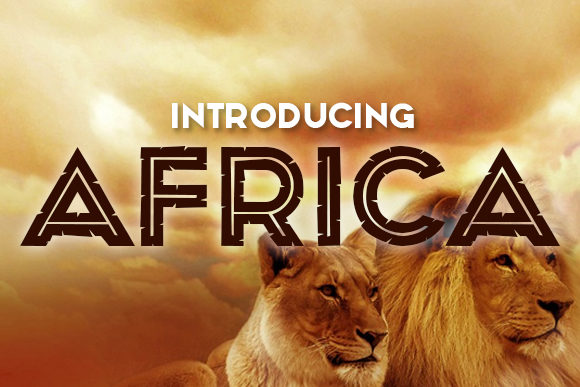
Introducing Africa Font, the perfect addition to your fonts collection! Created by the talented vladimirnikolic, this daring display font is designed to make a bold statement. With its thick lettering and captivating style, Africa Font is the ultimate choice for anyone looking to add a touch of retro charm to their designs.
Are you tired of using the same old fonts that lack personality? Look no further! Africa Font is here to revolutionize your creative projects. Whether you're designing a logo, poster, or website, this font has the power to transform your work into a masterpiece. Its unique style will capture the attention of your audience and leave a lasting impression.
Picture this: a vintage-inspired logo that instantly transports your customers back in time. Africa Font brings nostalgia to life, making it the go-to choice for retro logos. Its versatility allows it to adapt to various industries, from fashion and music to food and beverages. Let your brand stand out from the crowd with this eye-catching font.
But Africa Font is not just aesthetically pleasing; it's also highly functional. Its thick lettering ensures optimal readability, making it perfect for headlines, titles, and displays. You can trust that your message will be conveyed with clarity and impact.
With Africa Font in your arsenal, you'll have the power to evoke emotions and create a connection with your audience. Its vintage charm will transport them to a different era, stirring up feelings of nostalgia and curiosity. Whether you're targeting a young audience eager to experience the past or an older demographic longing for the good old days, this font will captivate them all.